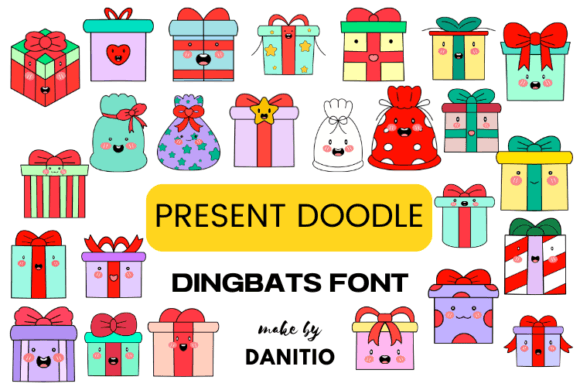
Introducing Present Doodle Font, the ultimate choice for all your printing needs! With its charming gift box theme and adorable Christmas outfits, this dingbat font is guaranteed to bring a touch of cuteness to your projects. Created by the talented danita.kukkai, Present Doodle Font is the perfect companion for all your festive occasions, from Christmas celebrations to birthdays and New Year's Day.
Imagine the joy and excitement you'll bring to your designs with this fun and quirky font. Whether you're creating holiday cards, party invitations, or personalized gifts, Present Doodle Font will add that extra special touch that makes your creations truly memorable. Let the whimsical characters of this font transport your audience to a world filled with laughter, love, and holiday cheer.
But that's not all! As a special bonus, we're including 26 delightful color PNG images to complement your designs. These vibrant illustrations will perfectly complement the playful nature of Present Doodle Font, allowing you to create stunning visuals that capture the essence of the season.
From the moment you download Present Doodle Font, you'll experience a world of endless possibilities. Its versatility knows no bounds, making it suitable for a wide range of projects. Whether you're a professional designer or a DIY enthusiast, this font will empower you to unleash your creativity and bring your visions to life.
But don't just take our word for it. Join the countless satisfied customers who have already discovered the magic of Present Doodle Font. They've used it to create stunning holiday greetings, eye-catching social media posts, and captivating branding materials. Now, it's your turn to elevate your designs and captivate your audience with this one-of-a-kind font.